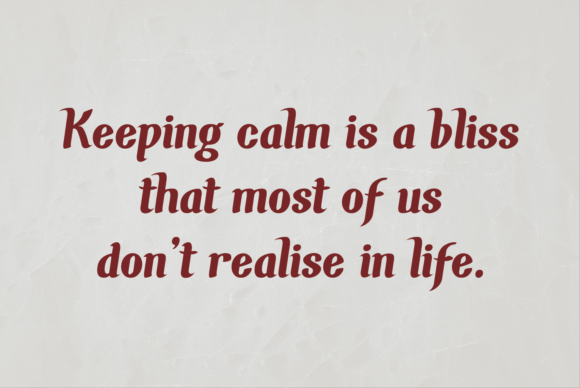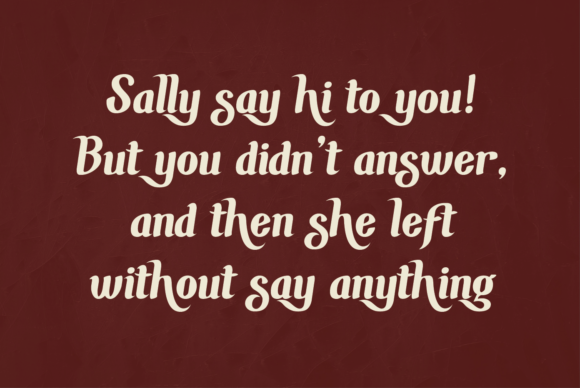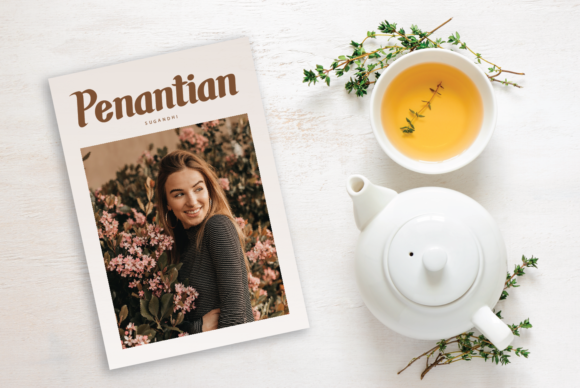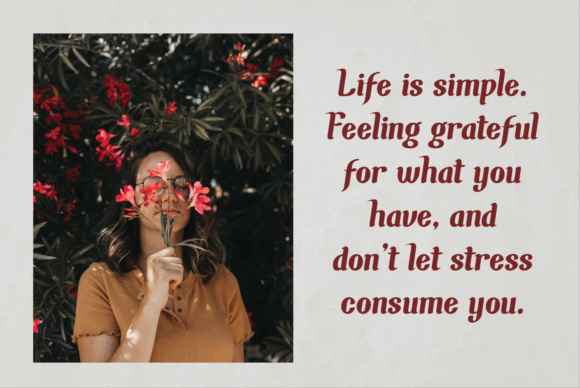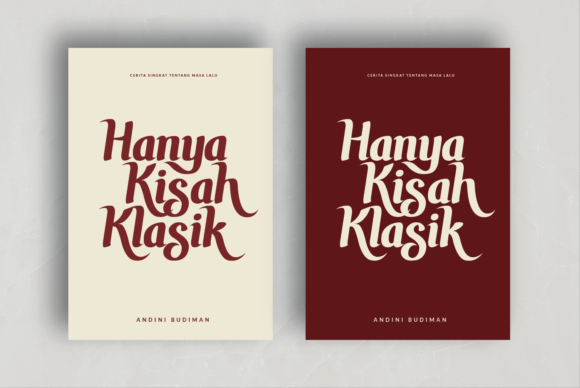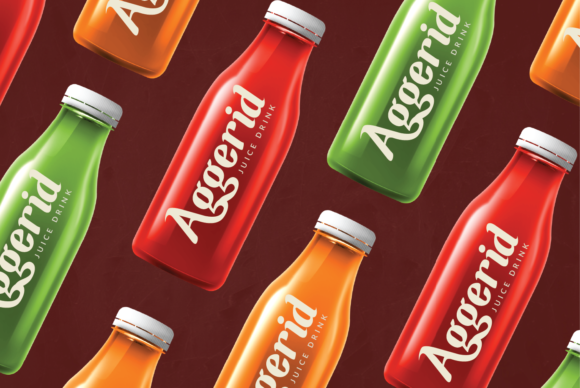
The Retro Charm of Chunky Wally Font: A Designer’s Delight
I still remember the design project that led me to discover Chunky Wally Font. I was working on a vintage-inspired branding campaign for a client who wanted to evoke a sense of nostalgia and playfulness. As I scrolled through font libraries, I stumbled upon Chunky Wally, and it instantly clicked. The beautiful, handwritten curves and imperfections transported me to a bygone era, and I knew I had found the perfect fit.
An Honest Review of Chunky Wally Font
What I Love About Chunky Wally ✨
- 💕 The retro vibe is spot on – it’s like a warm hug from the past.
- ✅ The font is surprisingly versatile, suitable for both headings and body text.
- 🎨 The unique character set and stylistic alternates offer endless creative possibilities.
- 👍 Chunky Wally’s readability is excellent, even at smaller font sizes.
- ⚠️ Some characters, like the lowercase ‘q’ and ‘x’, might appear a tad inconsistent in certain contexts.
- 🤔 The font’s strength lies in its vintage charm, which might not be the best fit for very modern or minimalist designs.
A Practical Guide to Using Chunky Wally Font
The Story Behind Chunky Wally Font
Chunky Wally Font was crafted with love by a talented type designer who drew inspiration from vintage lettering and signage. The goal was to create a font that would evoke a sense of nostalgia and playfulness, perfect for designers looking to add a retro touch to their projects. Although the designer’s story might be fictional, the font’s charm and character are undeniable.
| Is Chunky Wally Font suitable for body text? | Yes, Chunky Wally Font is surprisingly readable, even at smaller font sizes, making it suitable for body text. |
| Are there any similar fonts to Chunky Wally? | Yes, fonts like Kristi, Lobster, Rock Salt, and Great Vibes share similar characteristics and personalities. |
| Does Chunky Wally Font support OpenType features? | Yes, Chunky Wally Font offers OpenType features, including glyphs and stylistic alternates, for added typographic control. |